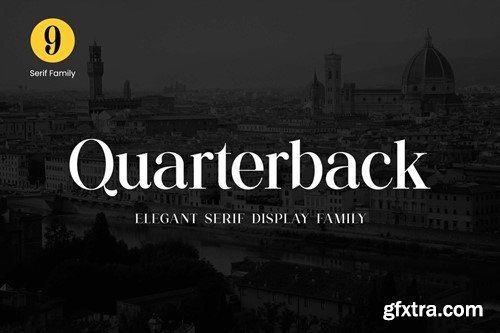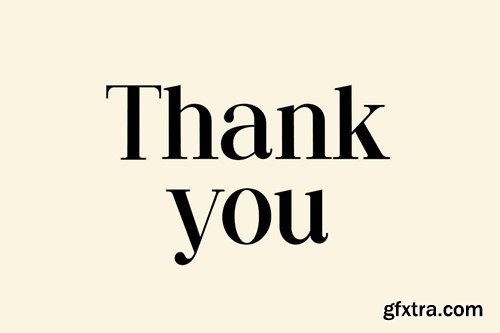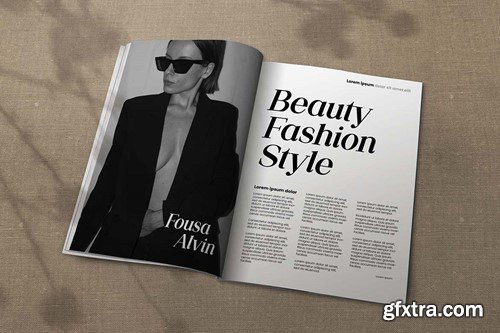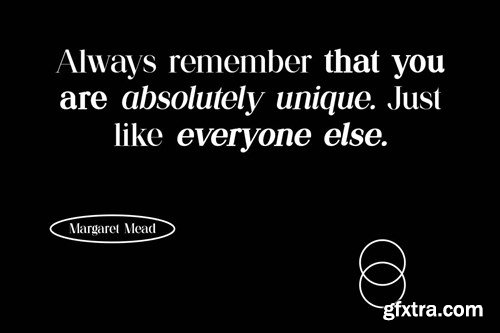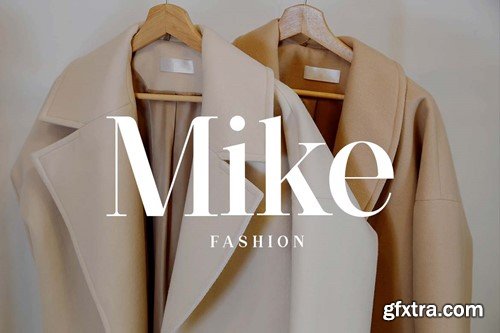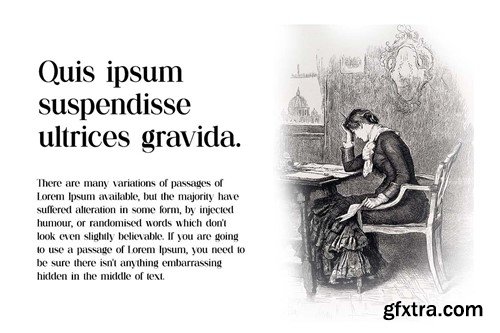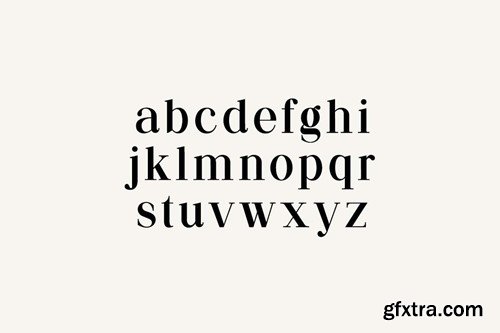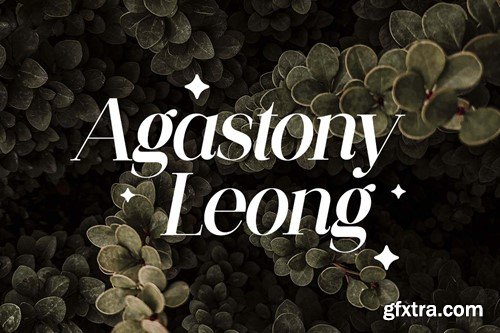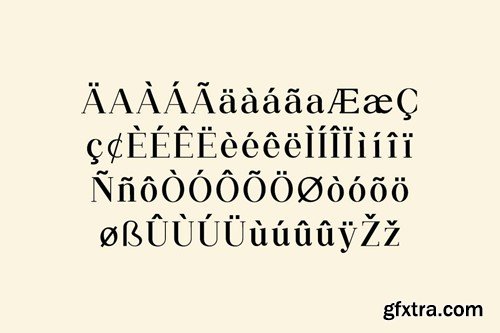
Introducing our new product the name is Quarterback Elegant Display Serif Font Family. Quarterback Elegant Display Serif Font Family that feels beautiful classy, elegant, and modern. This font is ideally suited for a wide variety of projects, such as signature, stationery, logo, wedding, typography quotes, magazine or book covers, website headers, clothing, branding, packaging design, and more. Also, fashion-related branding or editorial design displays both masculine and feminine qualities. Supported Characters: File Types Included: